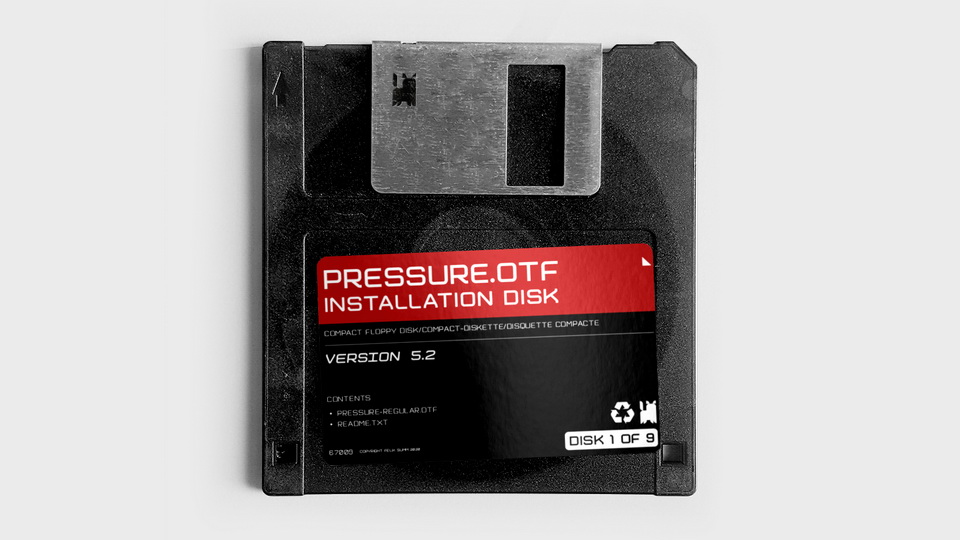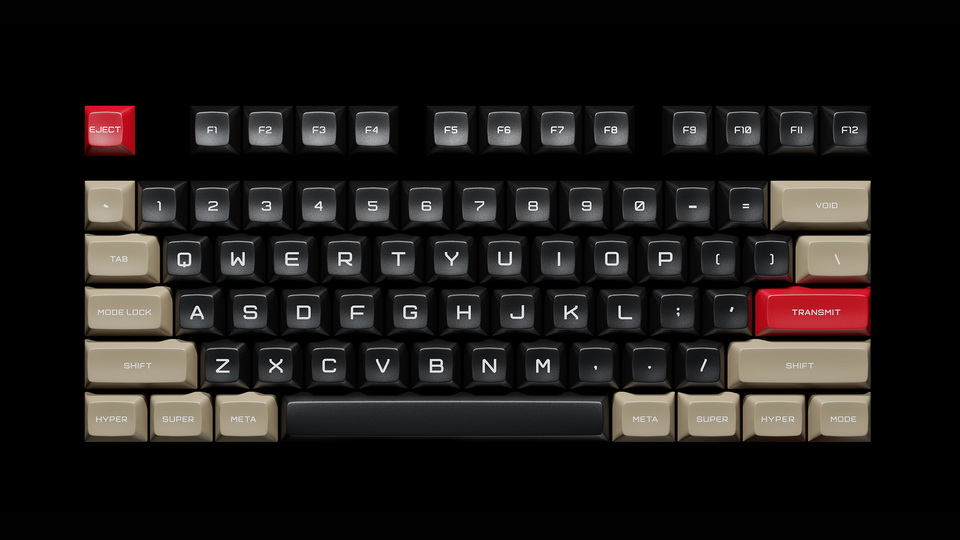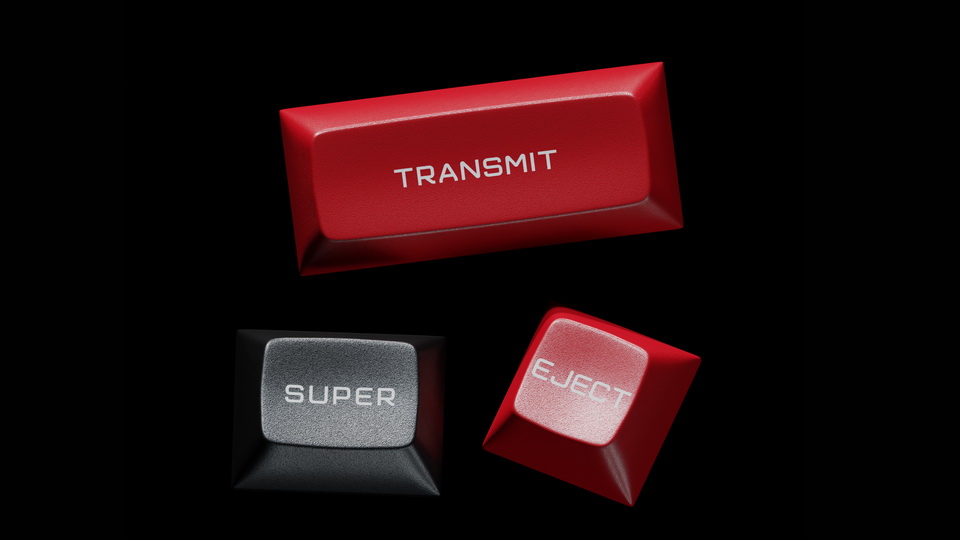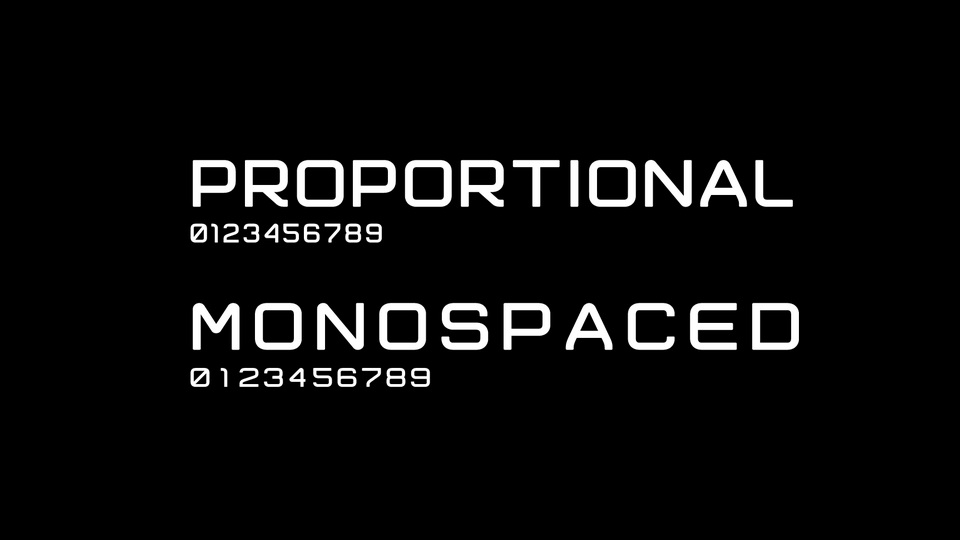
FPD Pressure is inspired by DSA profile keycaps and retro keyboards such as the Space Cadet and fonts featured in science-fiction movies. The letterforms are thus more square in shape and have their own subtle, retro roundness to them.
FPD Pressure comes in five weights from Thin to Bold, including matching Obliques.